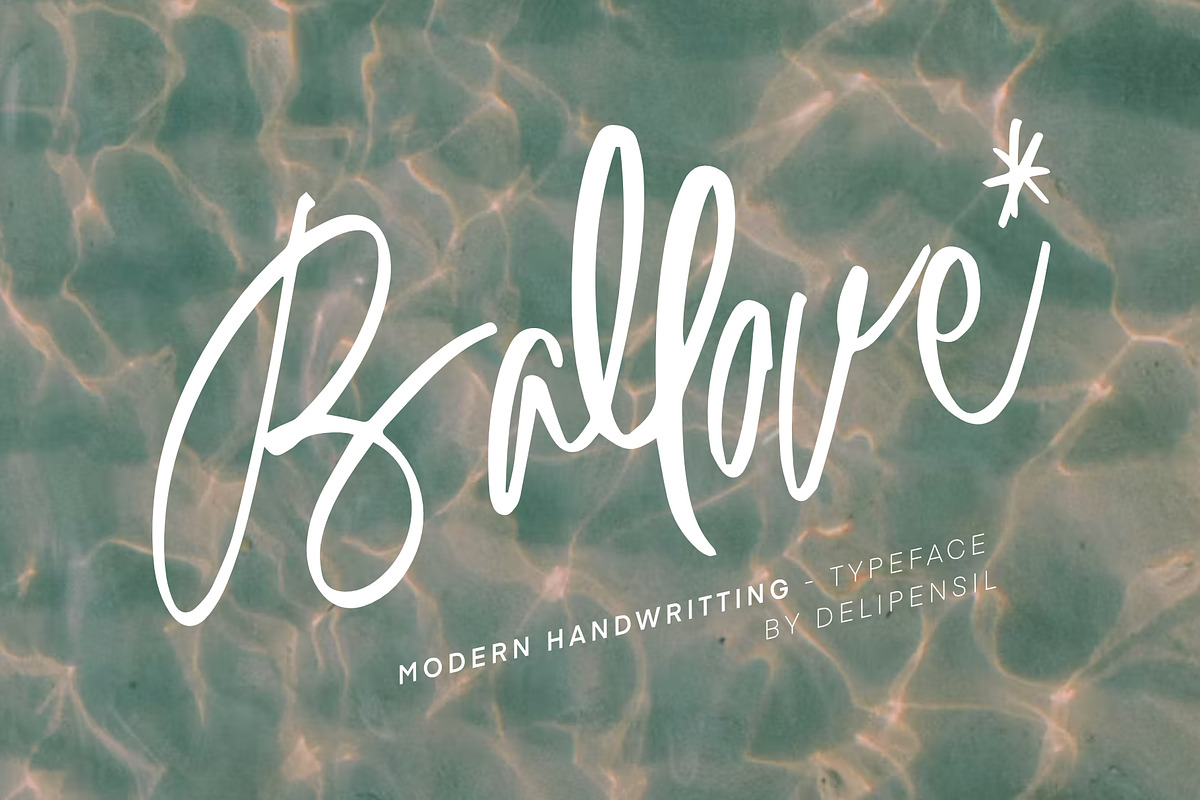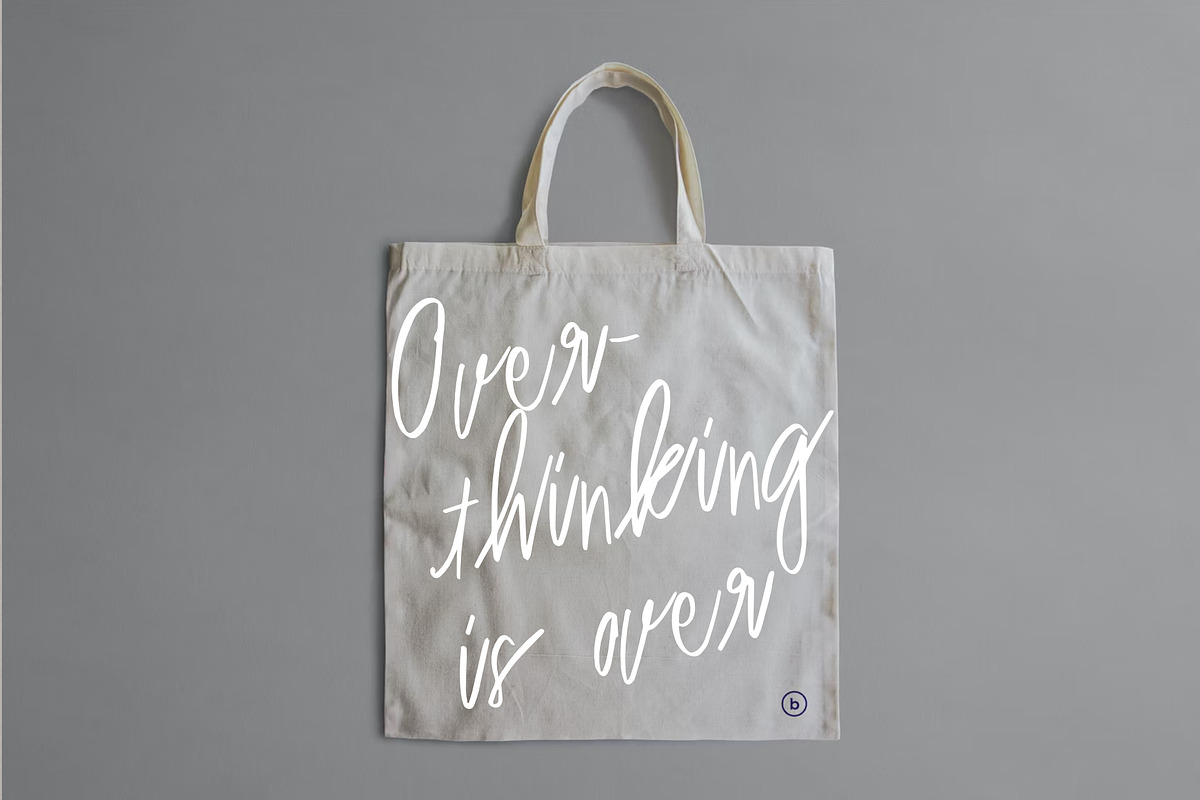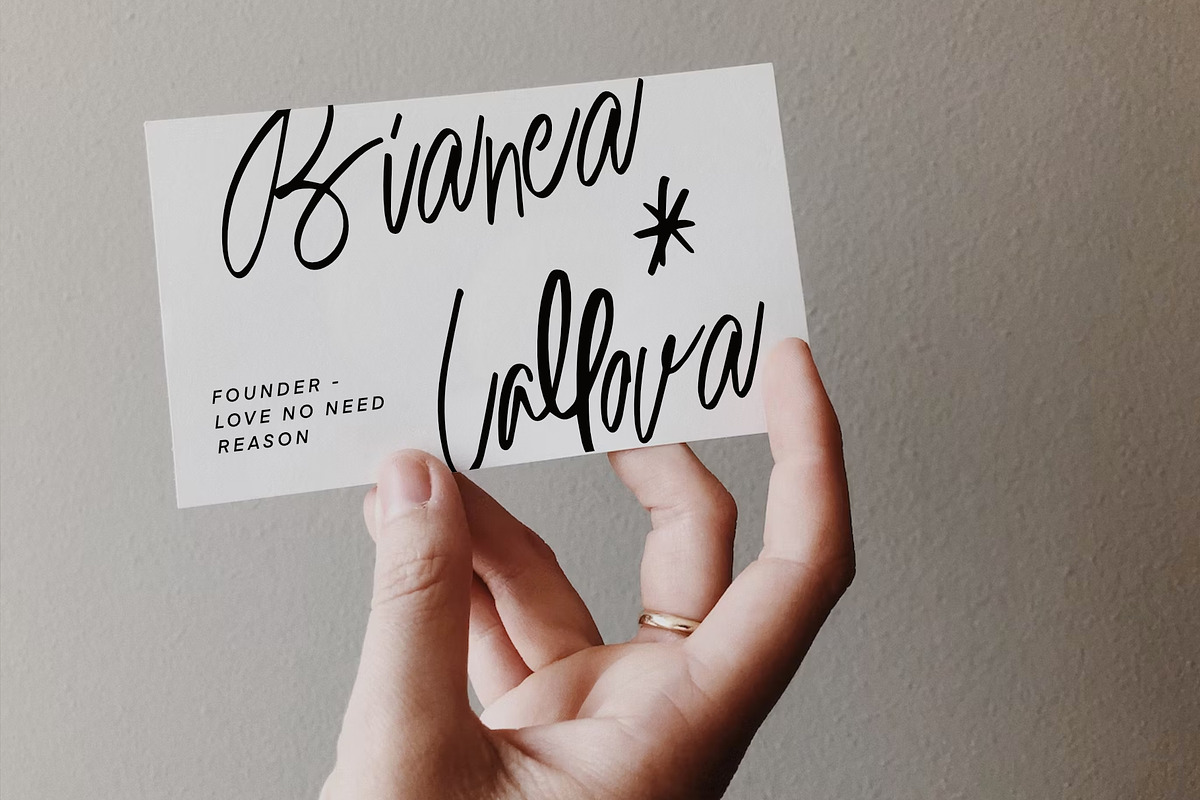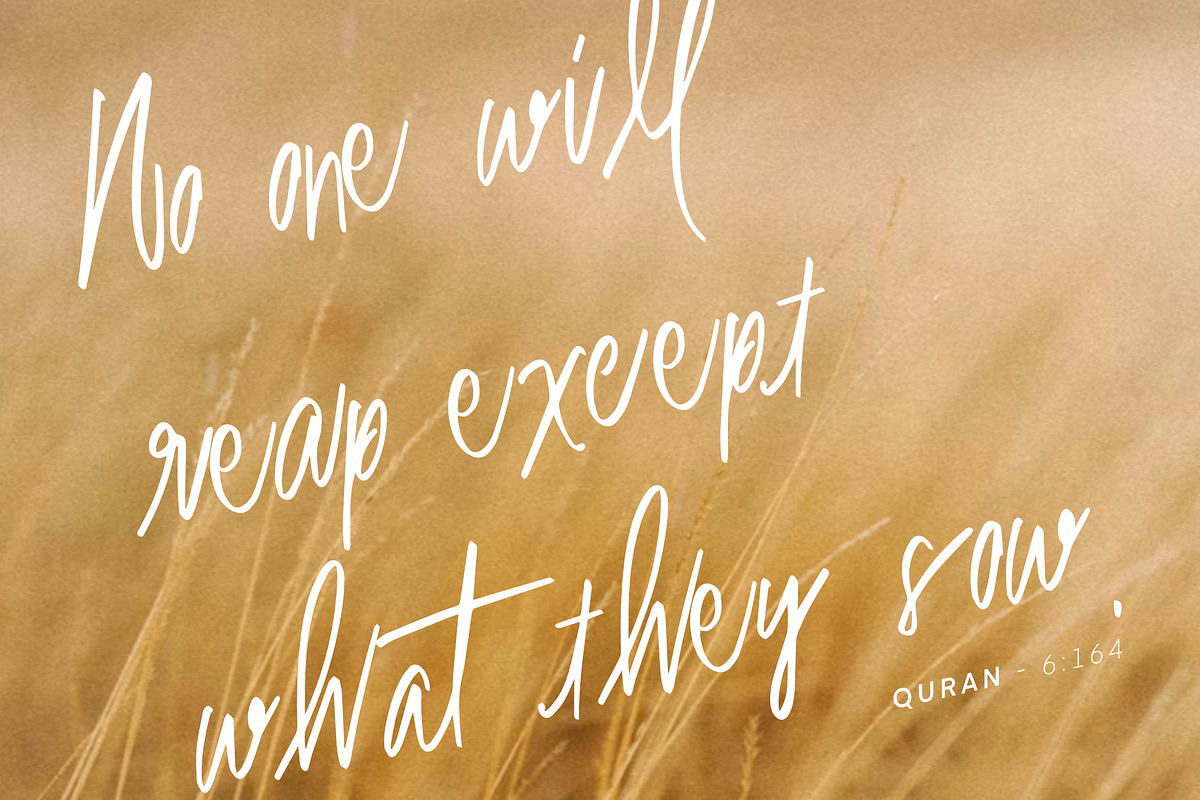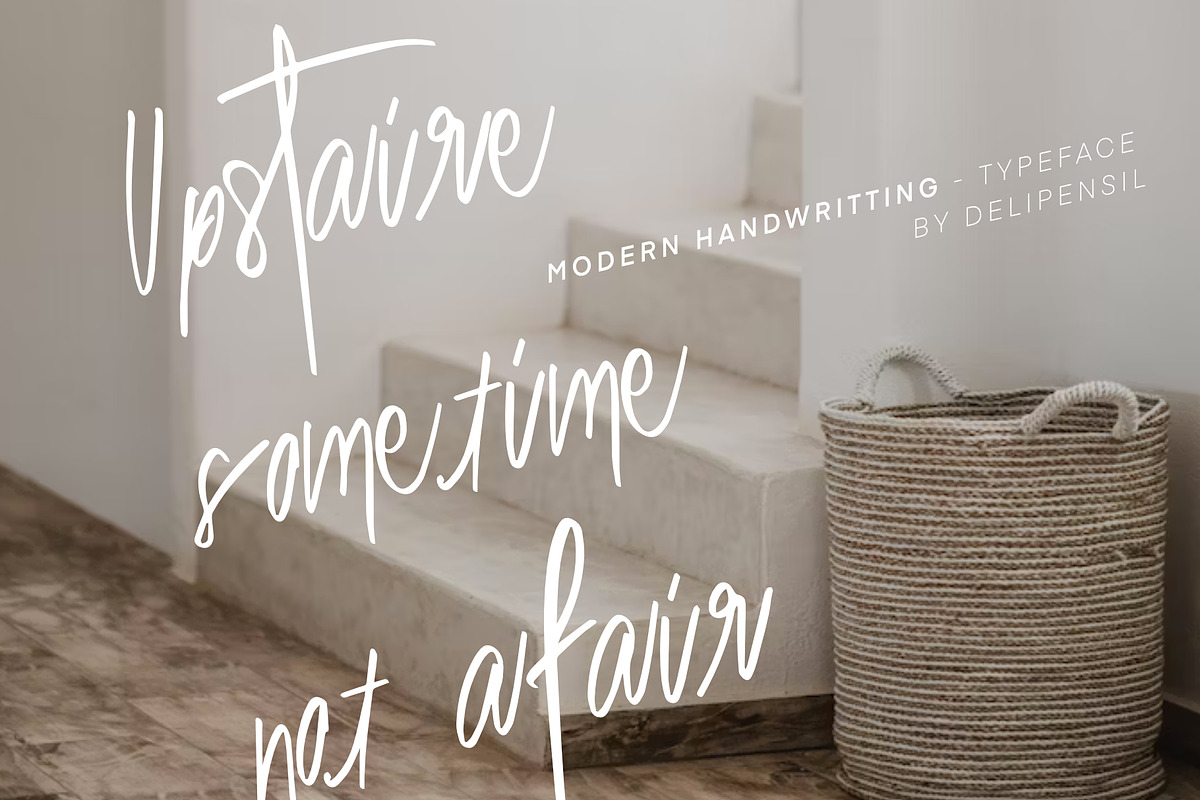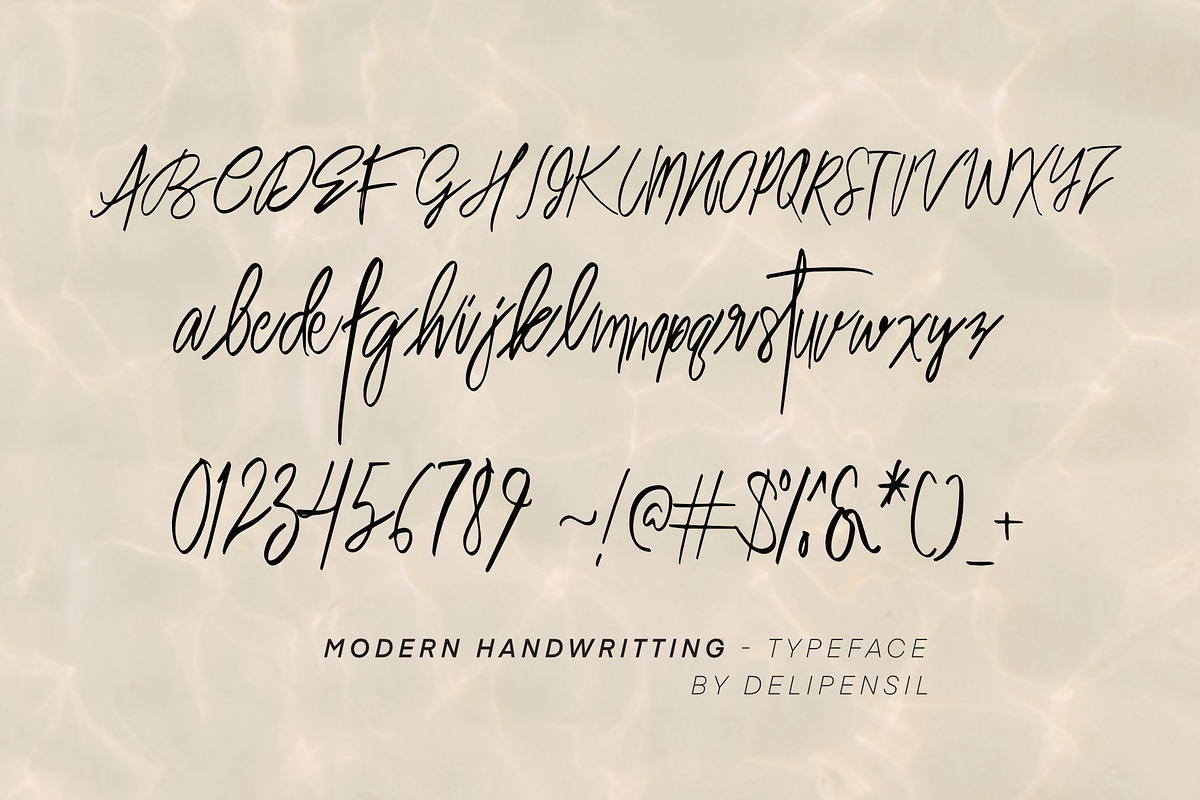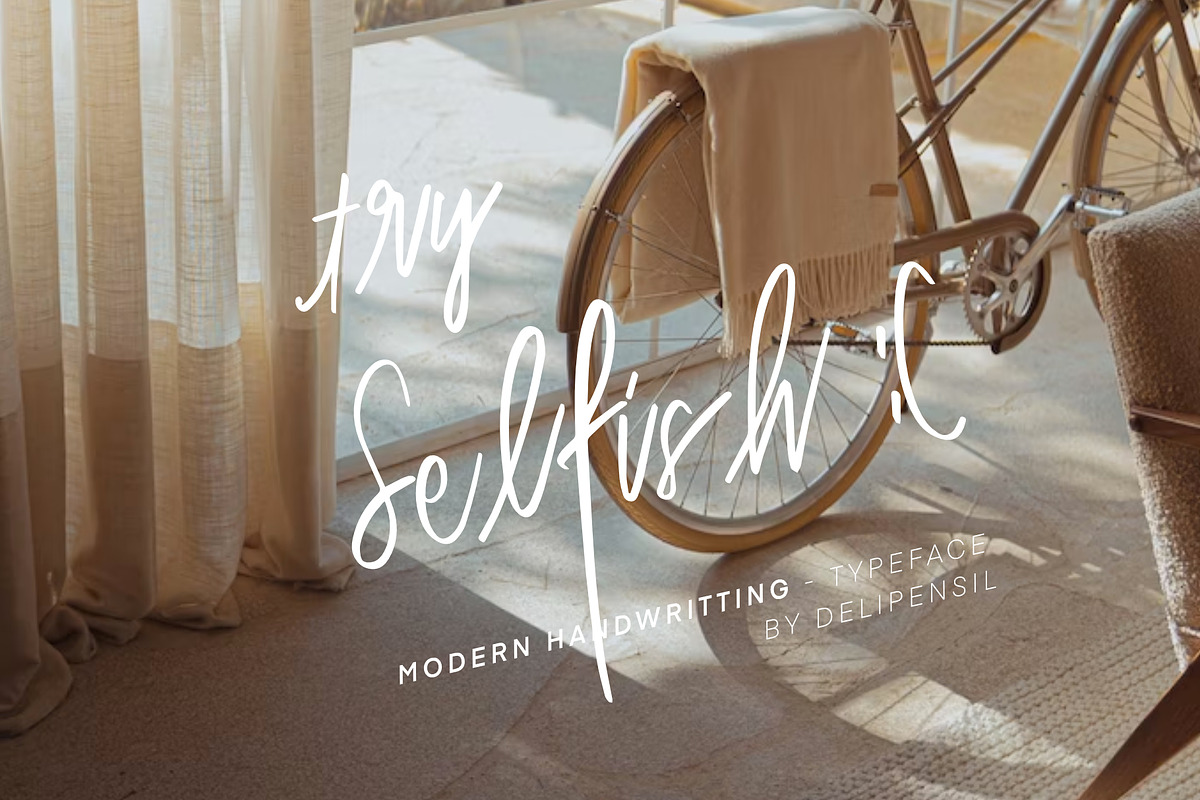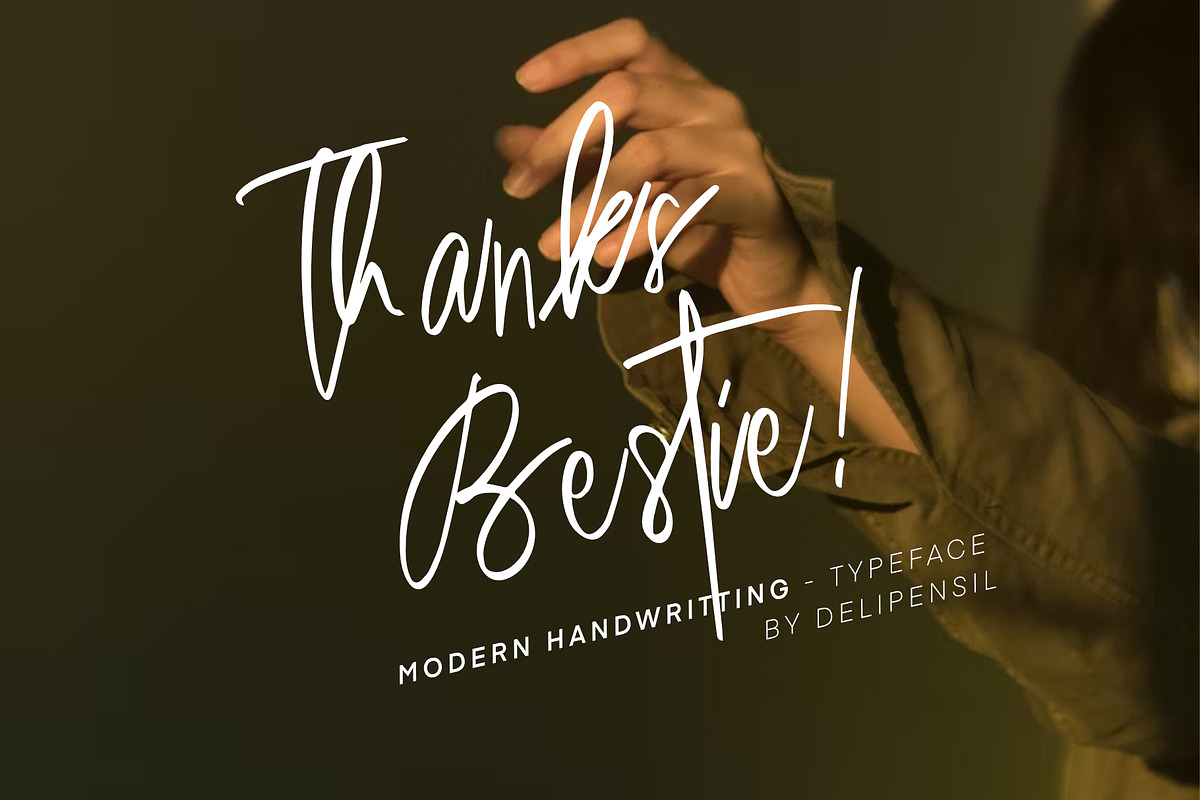
Ballove - Modern Handwritting Love
Bismillah, Introduction Ballove - Modern Handwritting Love
This font the first time we made original handwritting, one by one character, this special for you, if you need font for brandingm, quotes, logo, and merch you on the right place
- Ballove Font Style
- Ballove Numeral & Punctuation
- Ballove Kerning Style
- Ballove Ligature Style